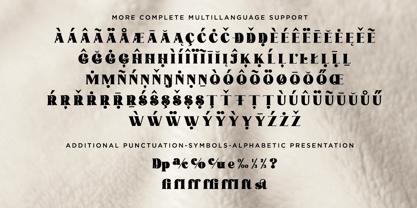
Avocado Sunday
by Absonstype
The Avocado Sunday Font Family was designed by Sarwo Edhi Prayitno, Edhi Prayitno and published by Absonstype. Avocado Sunday contains 2 styles and family package options.
Avocado Sunday is the Serif display typeface with combine uppercase and lowercase looks and feel nice balanced. Provide with alternates and ligatures font in variant style make the design letter looks nice. Honestly it works perfectly for headlines, logos, posters, packaging, T-shirts and much more.
Designers: Sarwo Edhi Prayitno, Edhi Prayitno
Publisher: Absonstype
Foundry: Absonstype